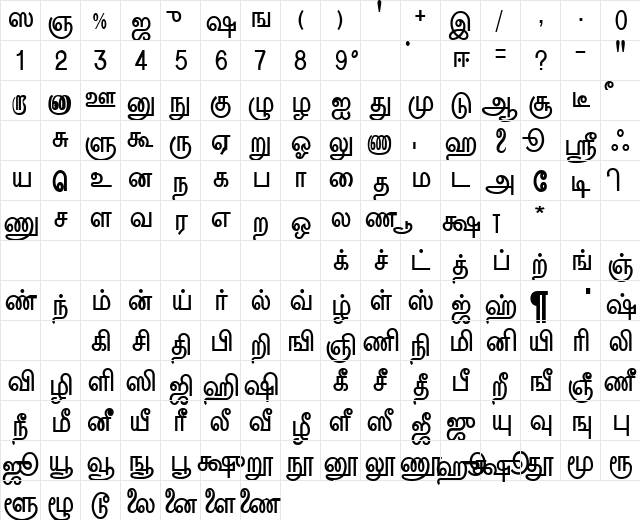
MCL Kanniga Regular Font Preview
MCL Kanniga Regular
MCL Kanniga Regular Font Details
Design Context for MCL Kanniga Typeface
MCL Kanniga takes a measured approach to typography — its balanced proportions and neutral character make it a reliable workhorse for both digital and print work.